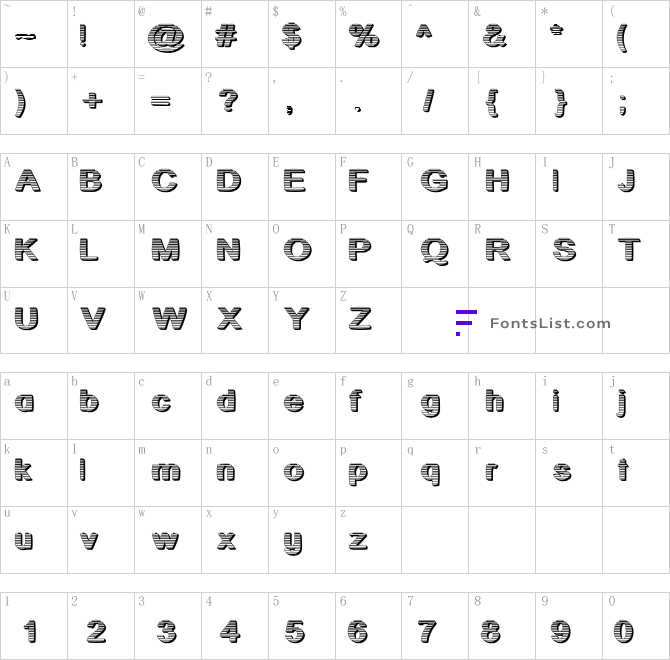
- Font Name:A Cut Above The Rest
A-Cut-Above-The-Rest.ttf is a very beautiful artistic font, A-Cut-Above-The-Rest.ttf is widely used in the design and printing of various books and pictures,A-Cut-Above-The-Rest.ttf has a strong visual impact,A-Cut-Above-The-Rest.ttf is a commonly used font in newspapers, magazines and books, and is used in posters, e-commerce Poster design, store design, logo design, font design and other fields.A-Cut-Above-The-Rest.